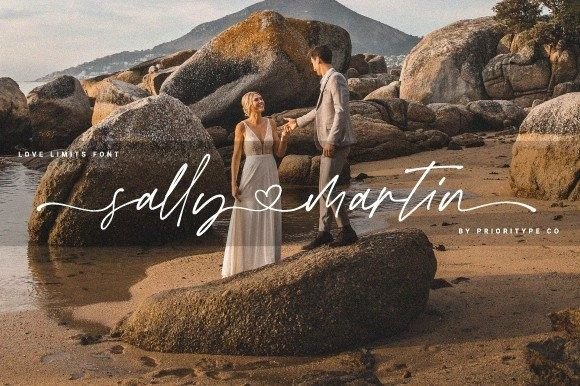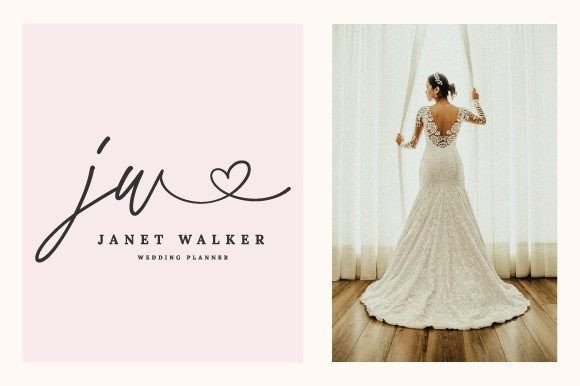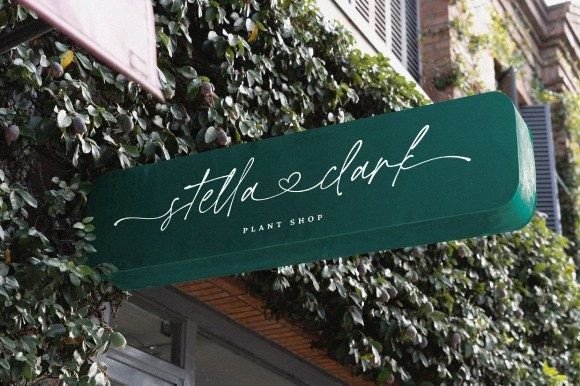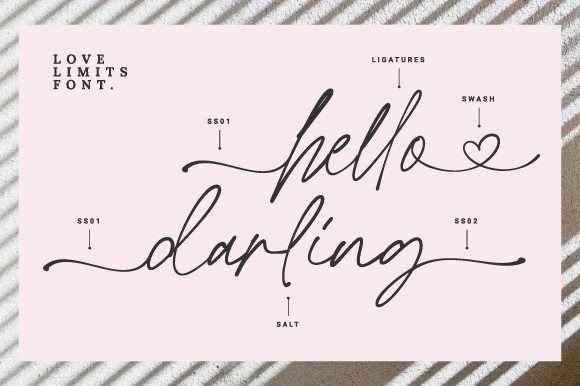
About Love Limits Font
Love Limits is a stylish handwritten font that adds a touch of elegance to your design projects. Its graceful and sophisticated appearance makes it a perfect choice for branding, logotypes, wedding invitations, and various other creative endeavors. When incorporated into your designs, Love Limits captivates hearts and grabs attention with its unique charm and beauty.
This font’s versatility allows it to seamlessly blend into different contexts, enhancing the visual appeal of your projects. Whether you’re working on a romantic wedding invitation, a chic logo, or an eye-catching branding campaign, Love Limits lends a sense of sophistication and style to your designs.
One of the standout features of Love Limits is its PUA encoding, granting easy access to all the glyphs and swashes. This accessibility enables you to incorporate decorative elements and intricate designs effortlessly, adding a personalized and unique touch to your projects. With Love Limits, you can create visually stunning and captivating designs that leave a lasting impression.
Embrace Love Limits in your creative endeavors and witness how it elevates your designs to new heights. Let its stylish handwritten charm be the perfect companion for your branding and design projects, capturing the hearts and attention of your audience. With Love Limits, you have the opportunity to create elegant and visually appealing designs that stand out and make a statement.